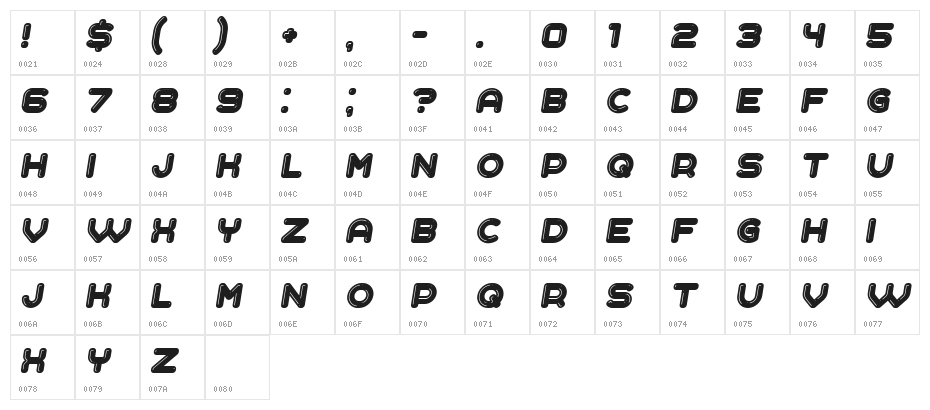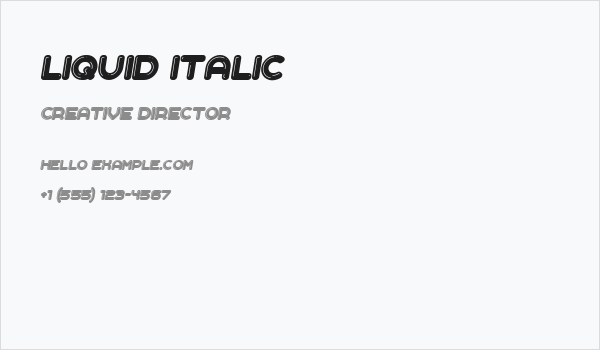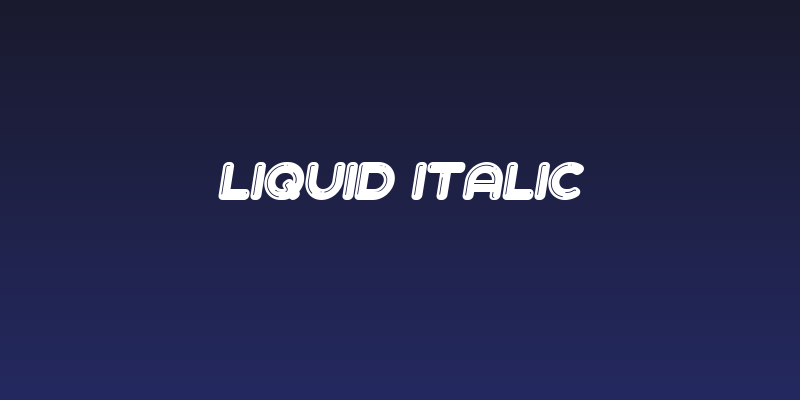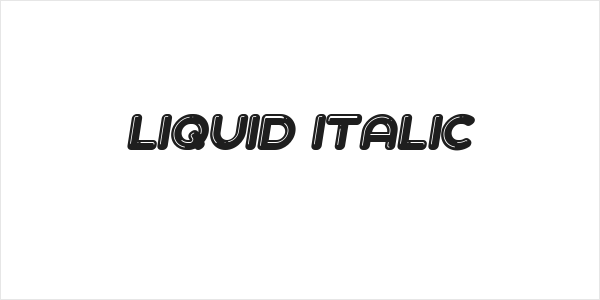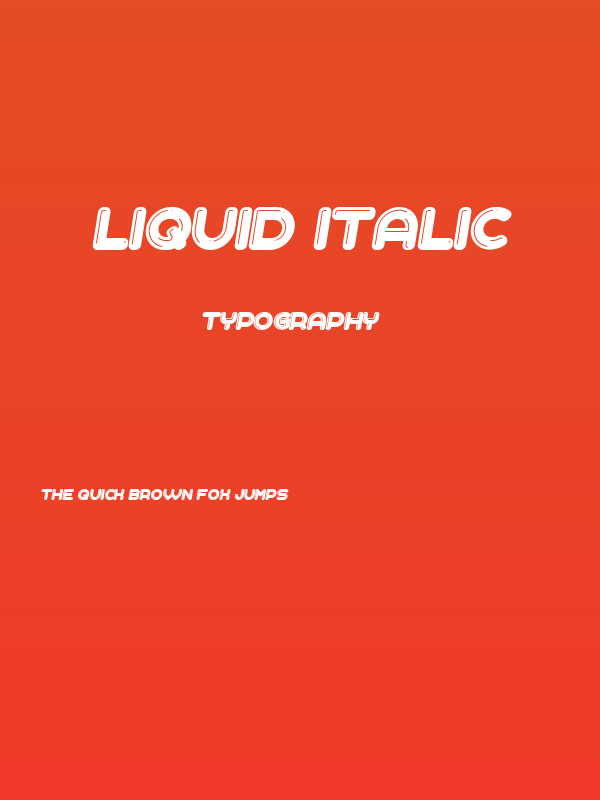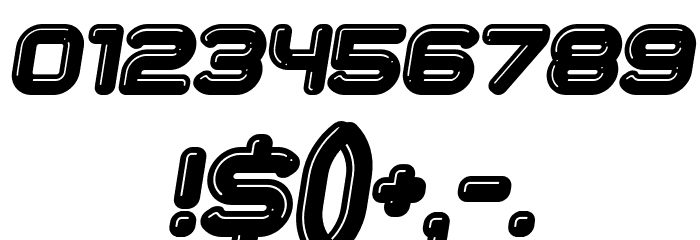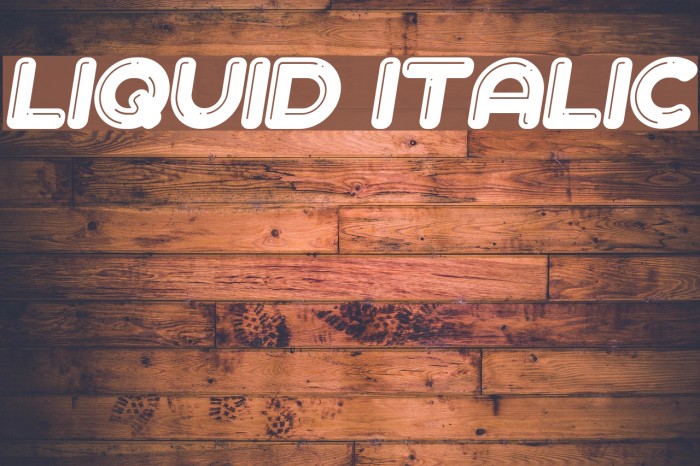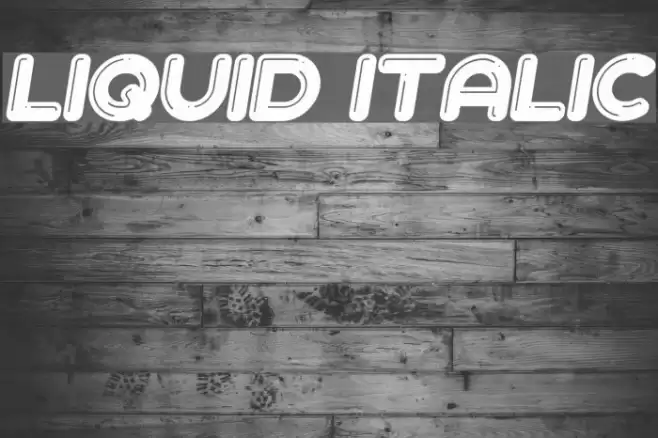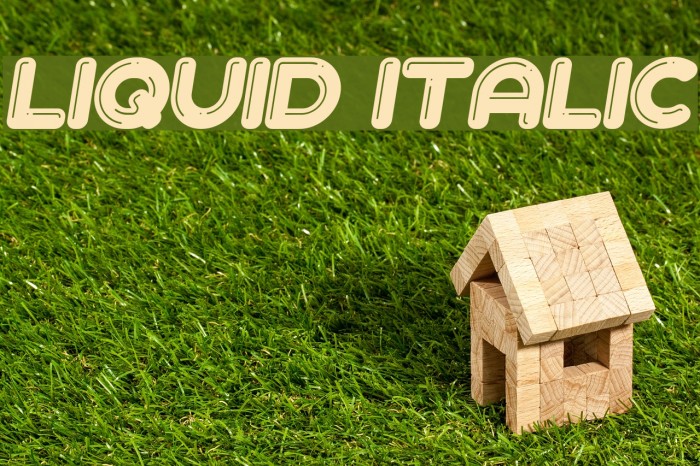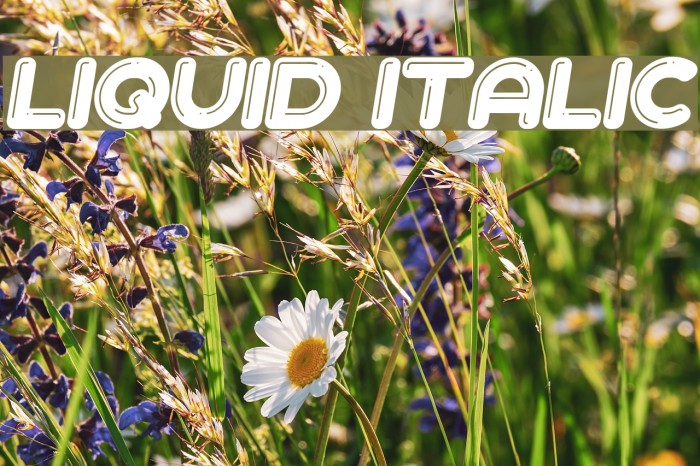
Liquid Italic Font
Liquid Italic Description
This font features a bold, dynamic style with a liquid-like appearance, characterized by its thick, rounded strokes and a distinct italic slant. The letters are outlined, giving a three-dimensional effect that enhances its visual impact. The uppercase and lowercase letters maintain a consistent flow, while the numerals and special characters complement the overall design. Its playful yet bold aesthetic makes it suitable for eye-catching designs.
| Overall Style | Modern, Decorative |
| Proposed Projects | Ideal for branding, posters, headlines, and any project requiring a bold, attention-grabbing typeface. |